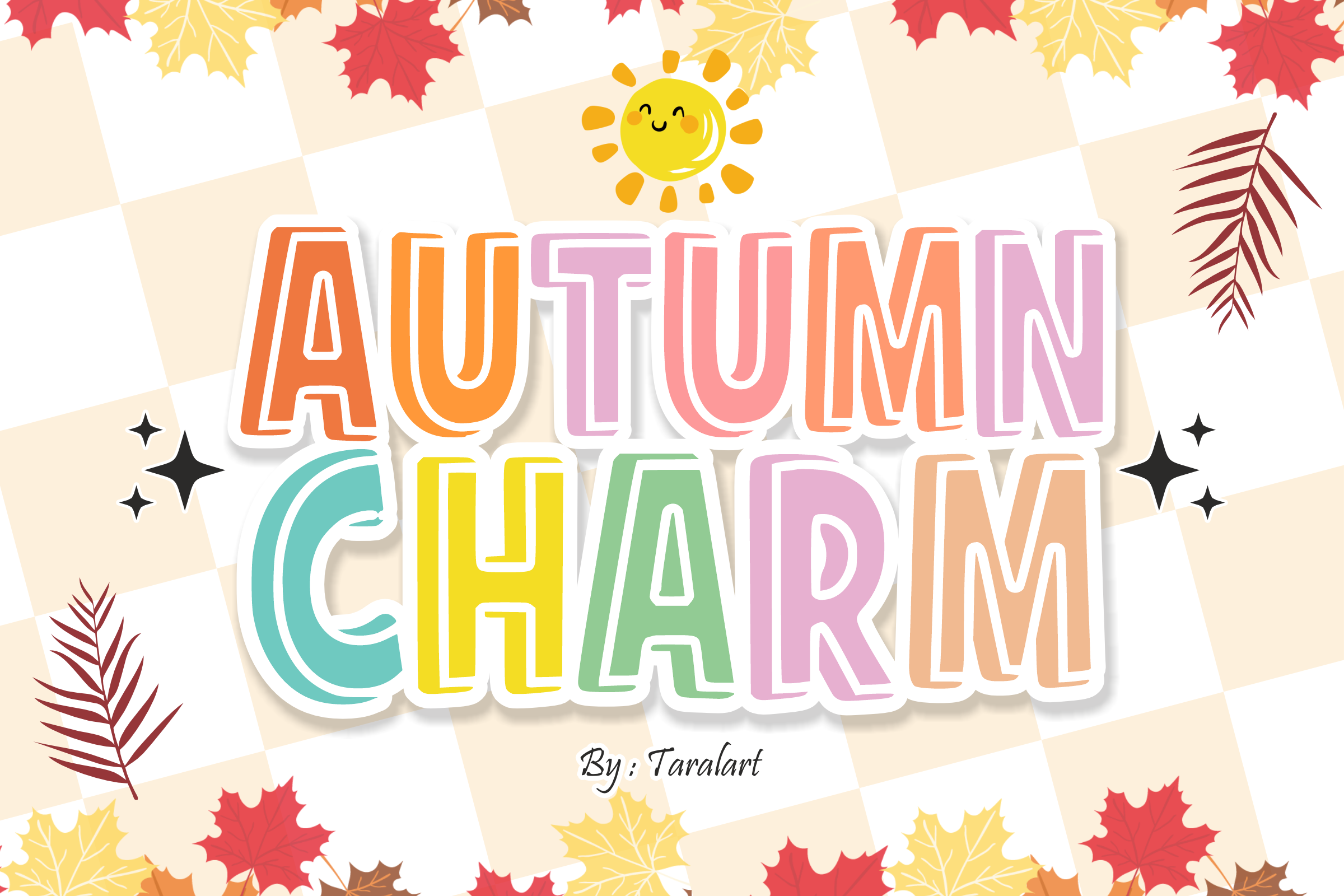
AUTUMN CHARM - Inline Display Font
AUTUMN CHARM - Playful Inline Display Font
Bring cozy vibes and cheerful energy to your creative projects with Autumn Charm! this bold display font features tall, chunky letterforms decorated with a stylish inner inline accent. It is explicitly designed to give your titles a warm, whimsical, and eye-catching look.
Perfect for seasonal celebrations, classroom graphics, and trend-focused crafting, Autumn Charm masterfully balances a playful cartoon aesthetic with exceptional legibility. It is highly versatile, deeply expressive, and fully optimized for smooth performance across digital cutting tools and professional print setups.
All-Caps Character Set (Tall, inline uppercase letters)
Fall & Autumn Branding, Thanksgiving Cards, & Cozy Holiday Decor 🍂
Cricut, Silhouette, & DIY Craft Sublimation Projects ✂️
Teacher Resources, School Activity Sheets, & Classroom Posters 🎒
Custom Stickers, Social Media Graphics, & Fun Apparel Prints 👕
Children's Book Covers, Playful Packaging, & Kids' Logos 📱